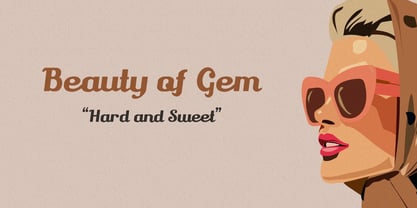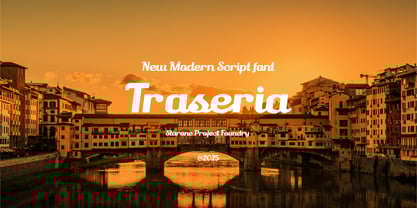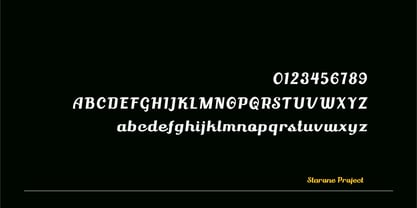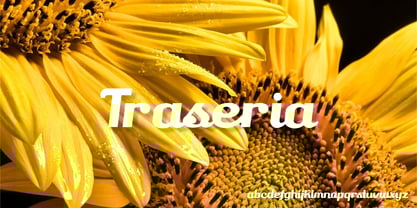
Traseria
by Starone Project
Traseria is Script modern font. This font typically feature a harmonious balance between thick and thin lines, creating a dynamic and eye-catching visual appeal.
Traseria is versatile, making it perfect for a variety of design projects such as wedding invitations, logos, branding, and social media graphics. It brings a sense of charm and elegance, making any text they adorn feel personal and expressive.